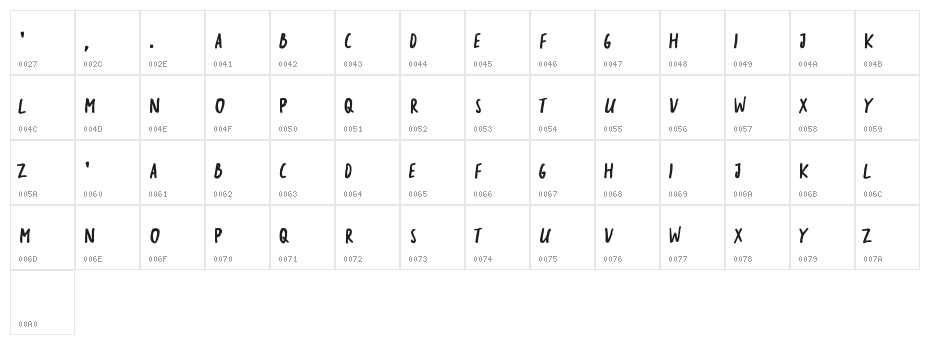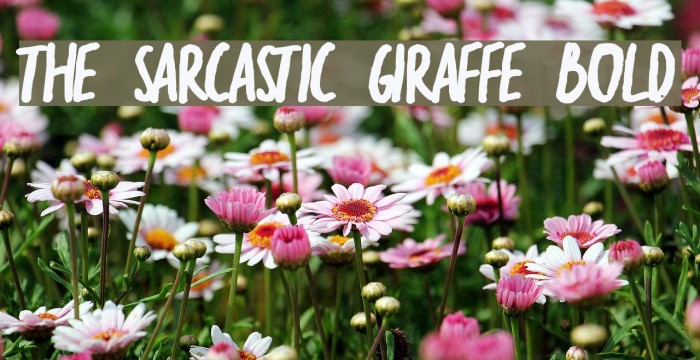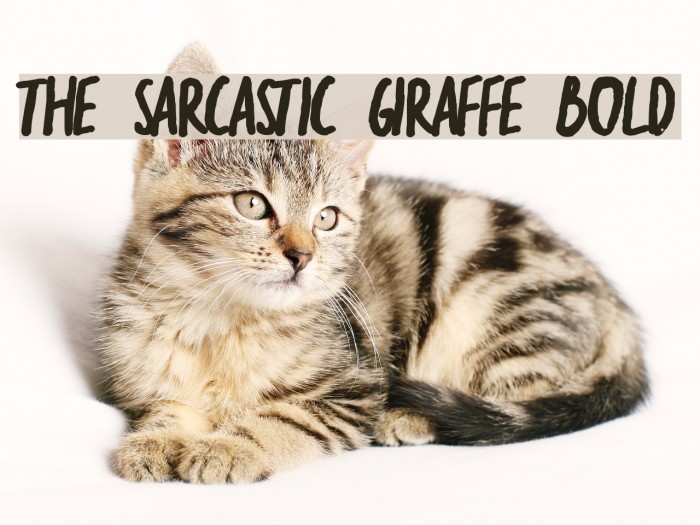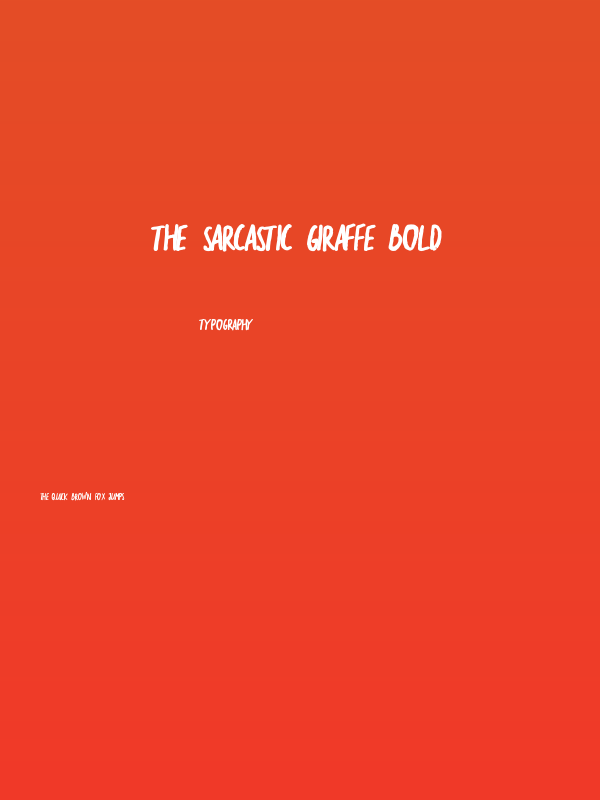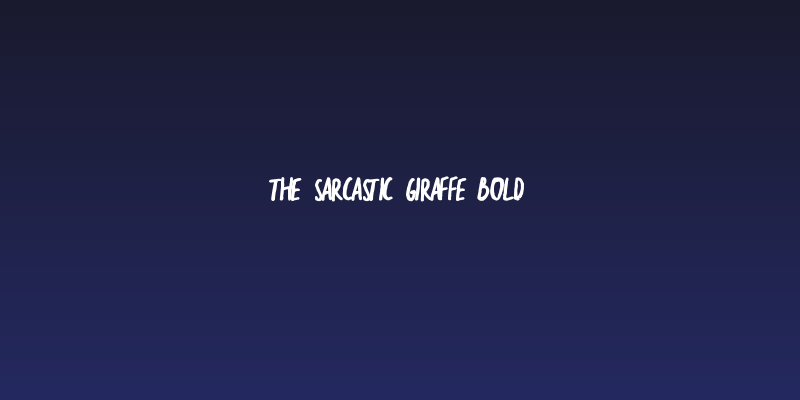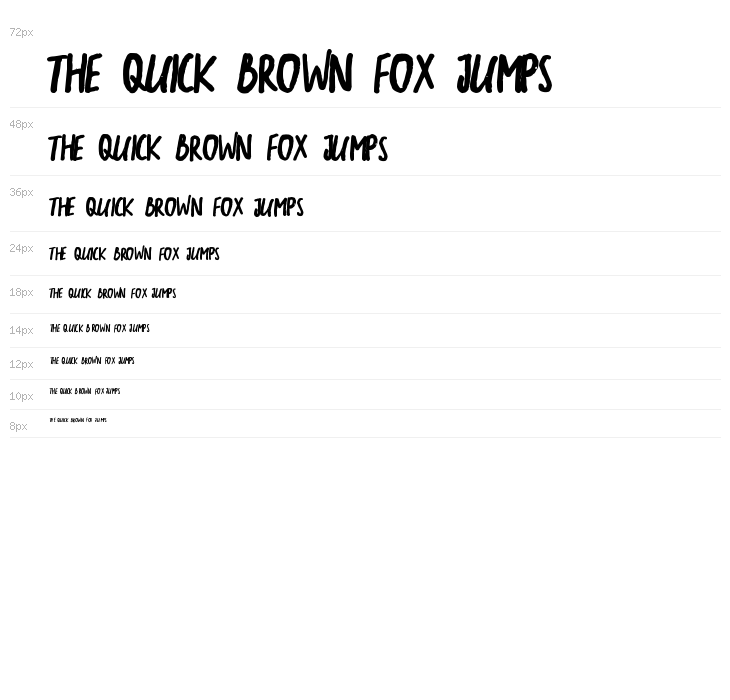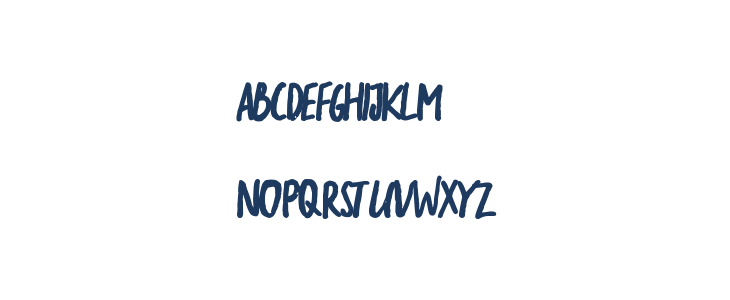
the sarcastic giraffe Bold Font
the sarcastic giraffe Bold Description
This font features a playful and energetic handwritten style, characterized by its bold and dynamic strokes. The letters exhibit a casual, yet confident appearance, with slightly irregular shapes that add to its charm. The uppercase and lowercase letters maintain a consistent flow, while the numbers and special characters integrate seamlessly with the overall design. The font's lively and informal nature makes it ideal for projects that require a personal touch or a sense of fun.
| Proposed Projects | Perfect for greeting cards, playful branding, children's books, and social media graphics. |